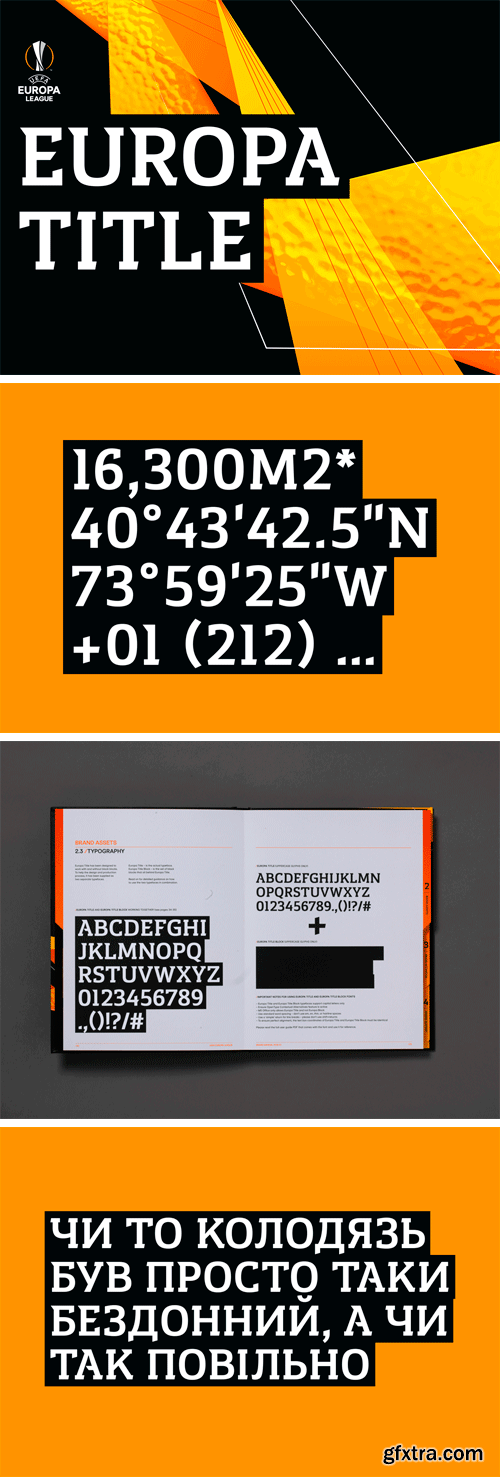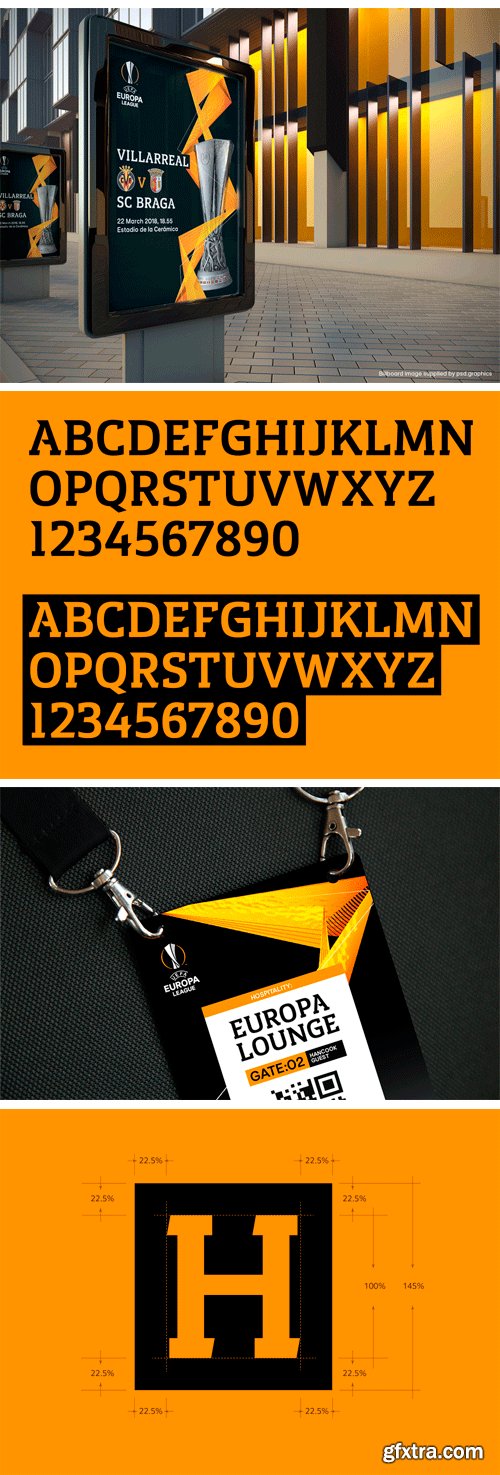
FS Europa Title - Custom Type for UEFA Europa League 2018—21
Way back in the summer of 2016, Turquoise Branding invited us to collaborate on a pitch to rebrand the UEFA Europa League 2018—21 competition. Turquoise were developing an angular symbol for UEFA, a wave of energy that passes through and unites all visual elements of the identity. They were looking to create a bespoke typeface that reflected this theme, one that could embody the spirit of the dynamic proposal and become synonymous with the competitions values. A typeface that could communicate energy, ambition, spark and positivity.